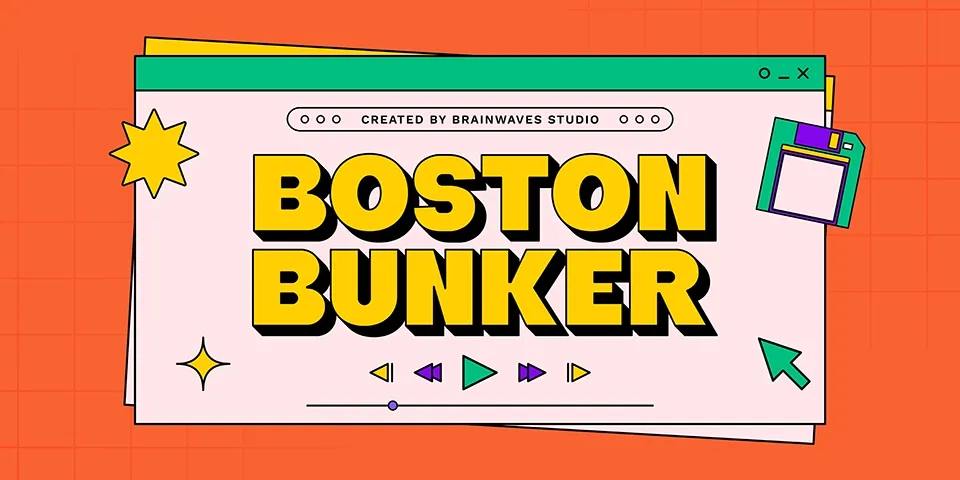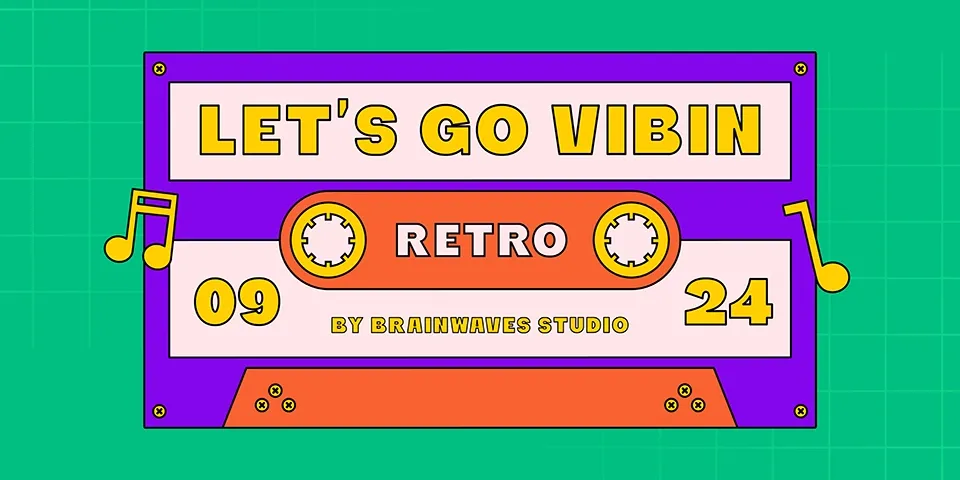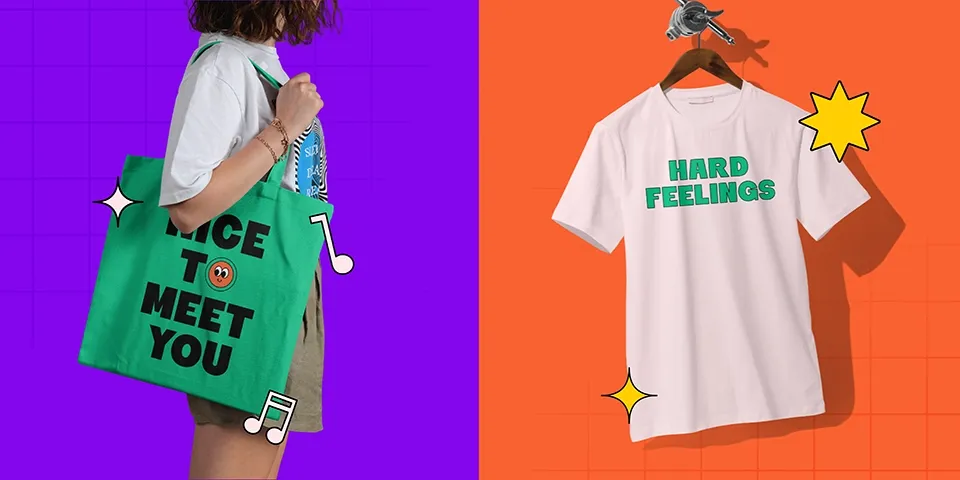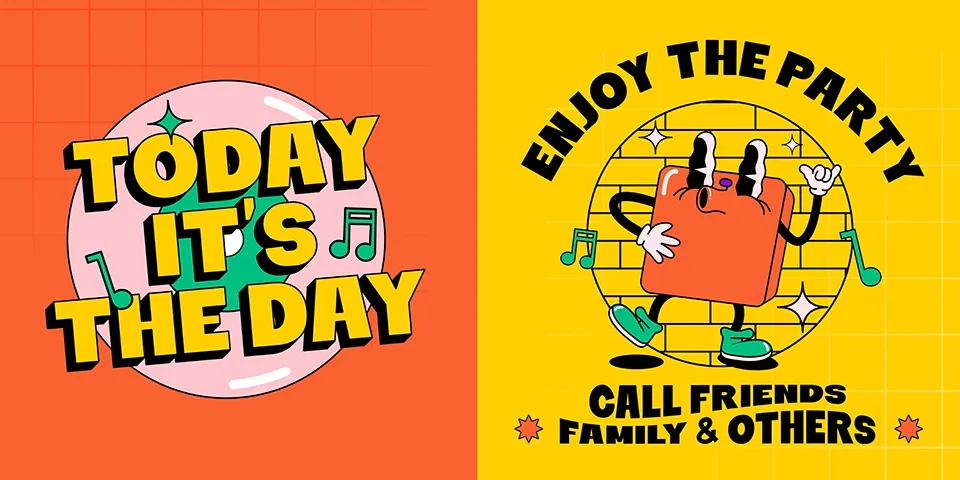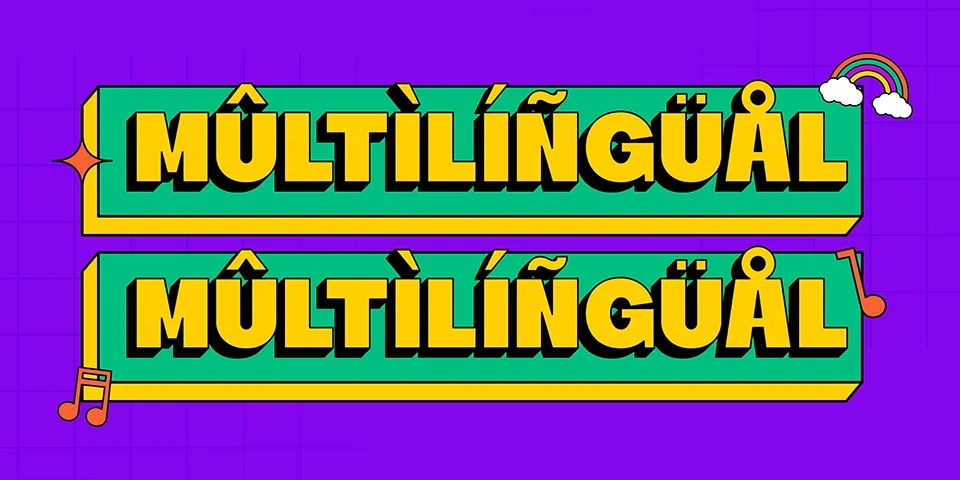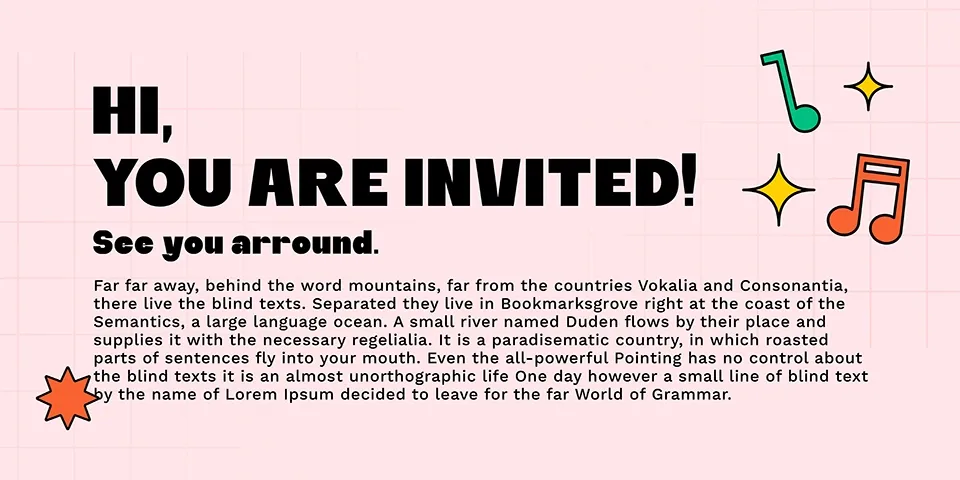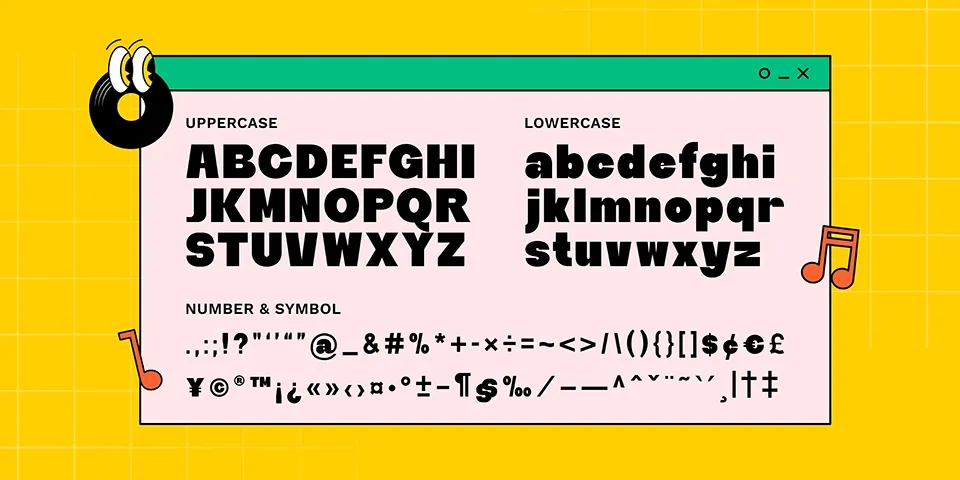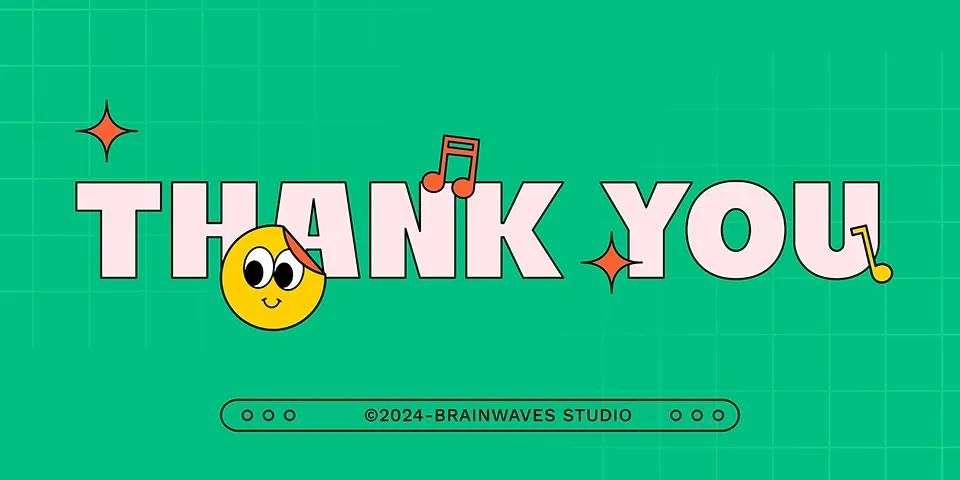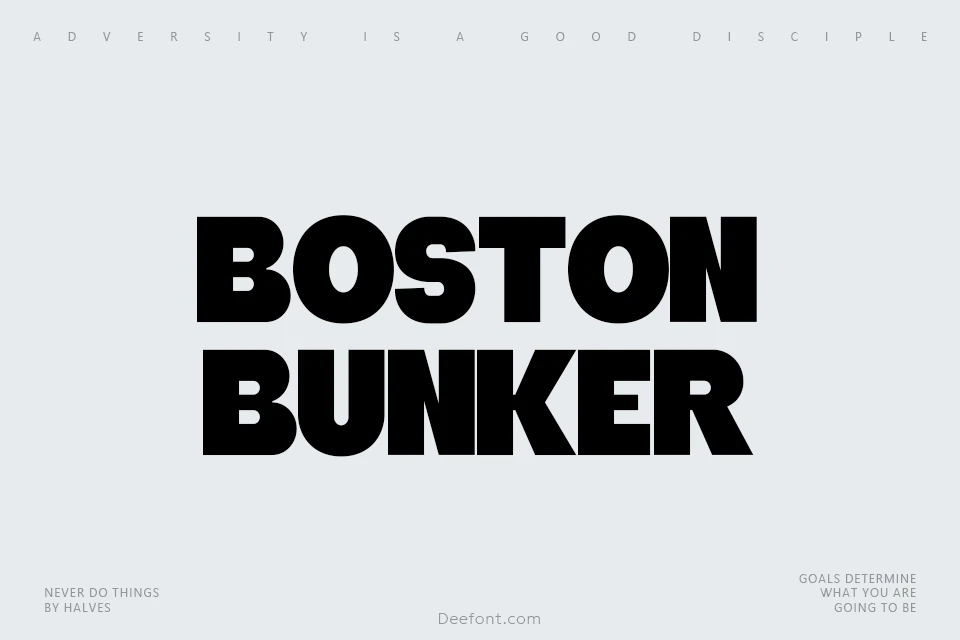
Boston Bunker Font
Boston Bunker Font is a bold retro display typeface that brings vintage flair to modern design. Created by Brainwaves Studio, this eye-catching typeface features thick, geometric letterforms with strong shadows that create a powerful visual impact. Perfect for logos, posters, headlines, and branding projects that demand attention, Boston Bunker combines nostalgic charm with contemporary minimalism. Its bold character set includes full alphabet support across multiple languages, making it versatile for both local and global projects. Whether you’re designing for print or digital media, Boston Bunker delivers a striking retro aesthetic that stands out in any creative work. Add some vintage boldness to your designs with this unique display font!